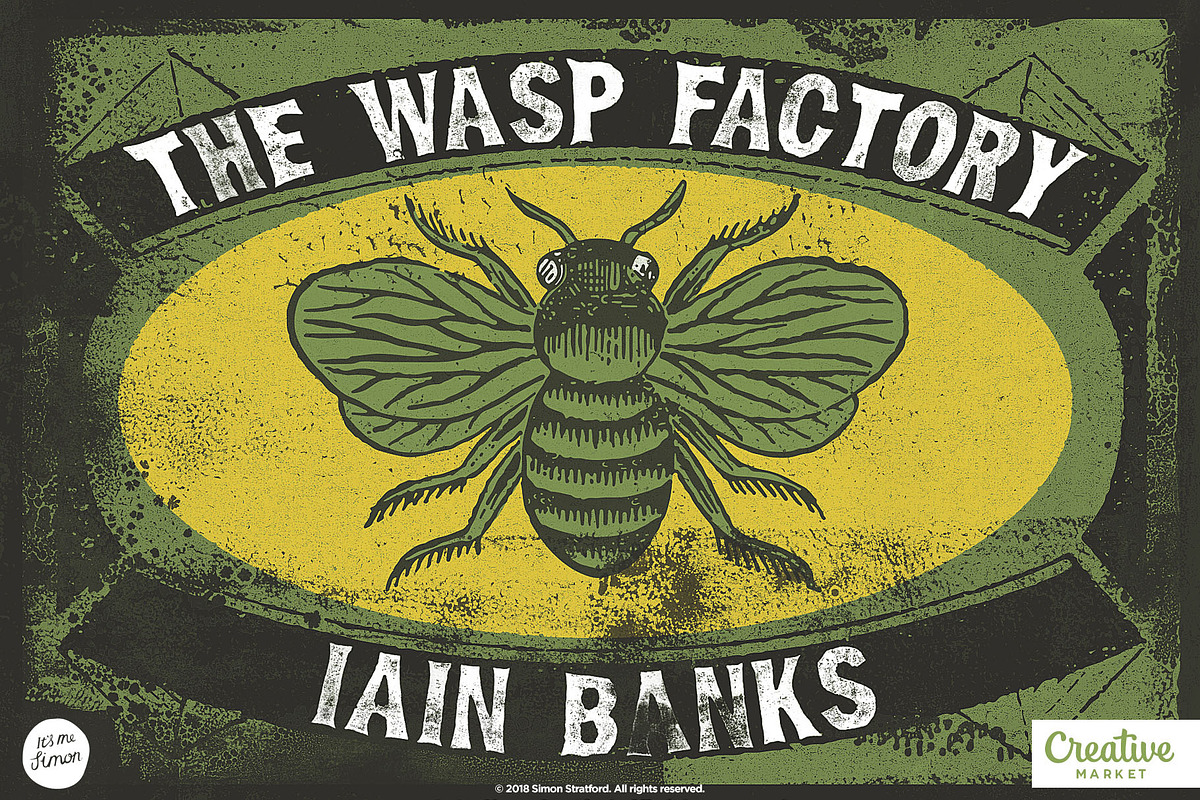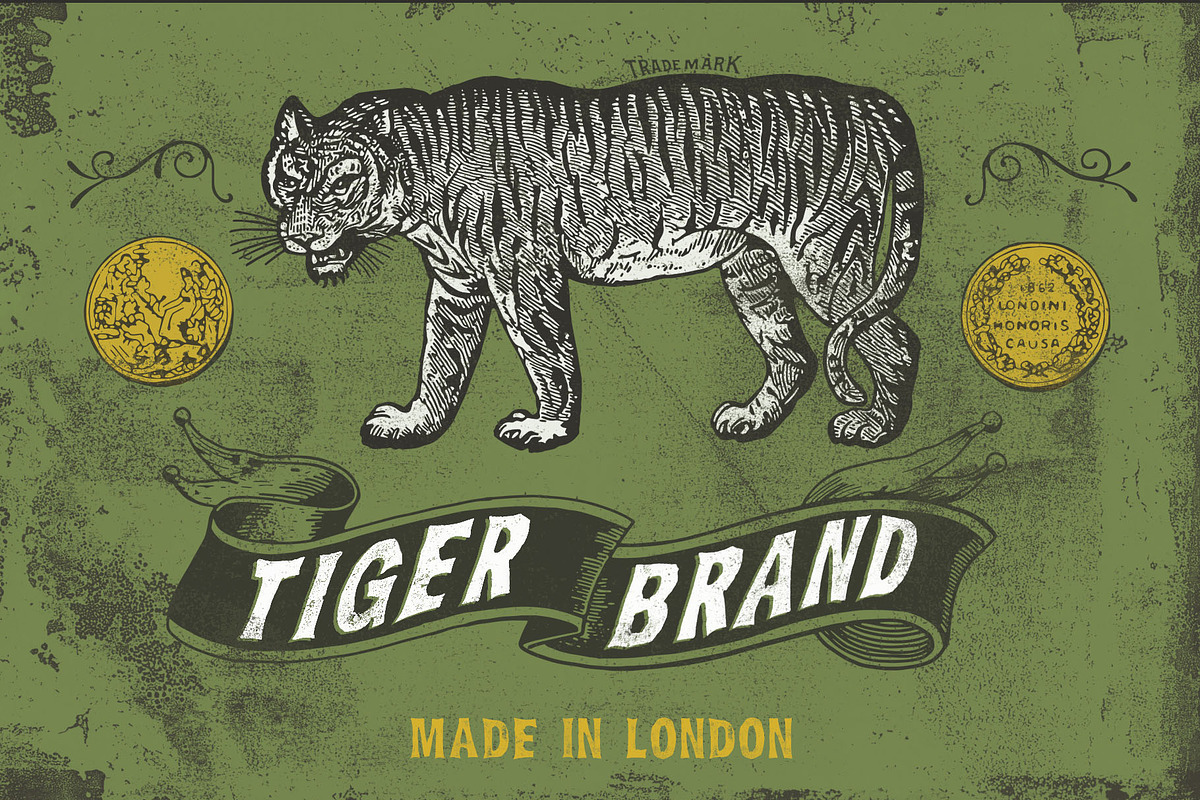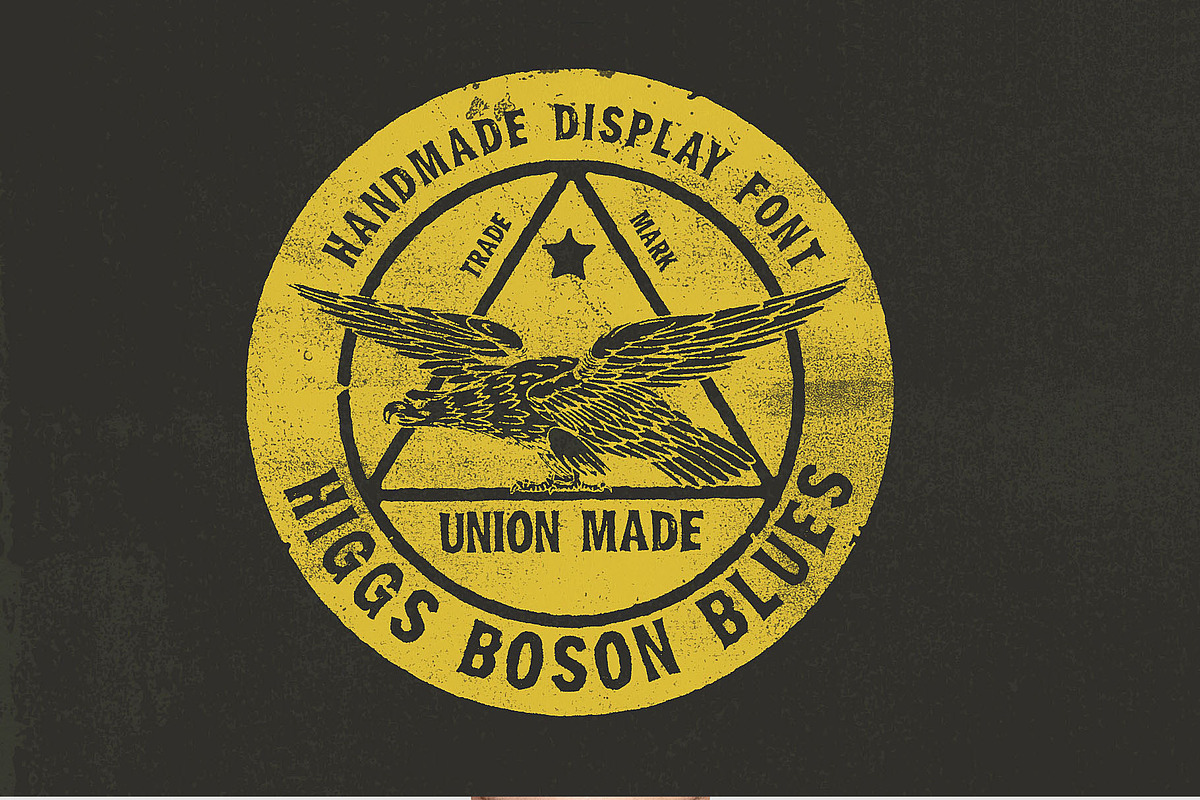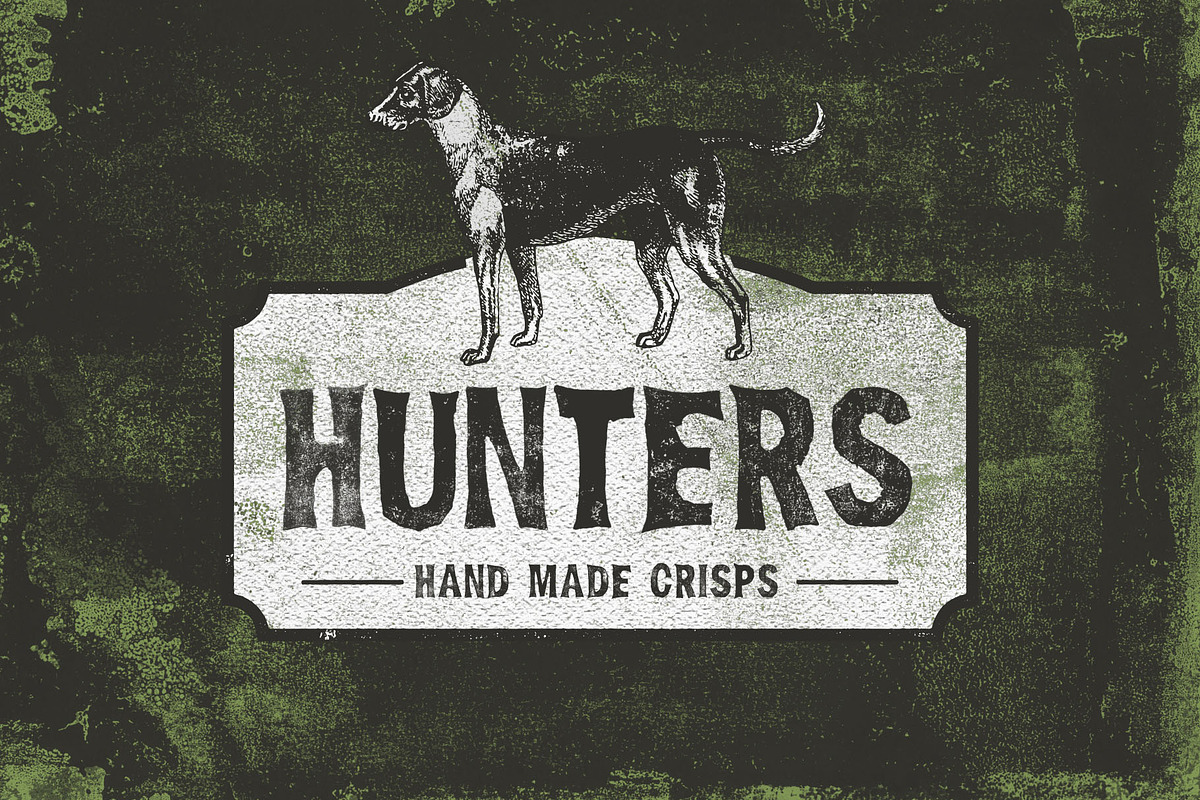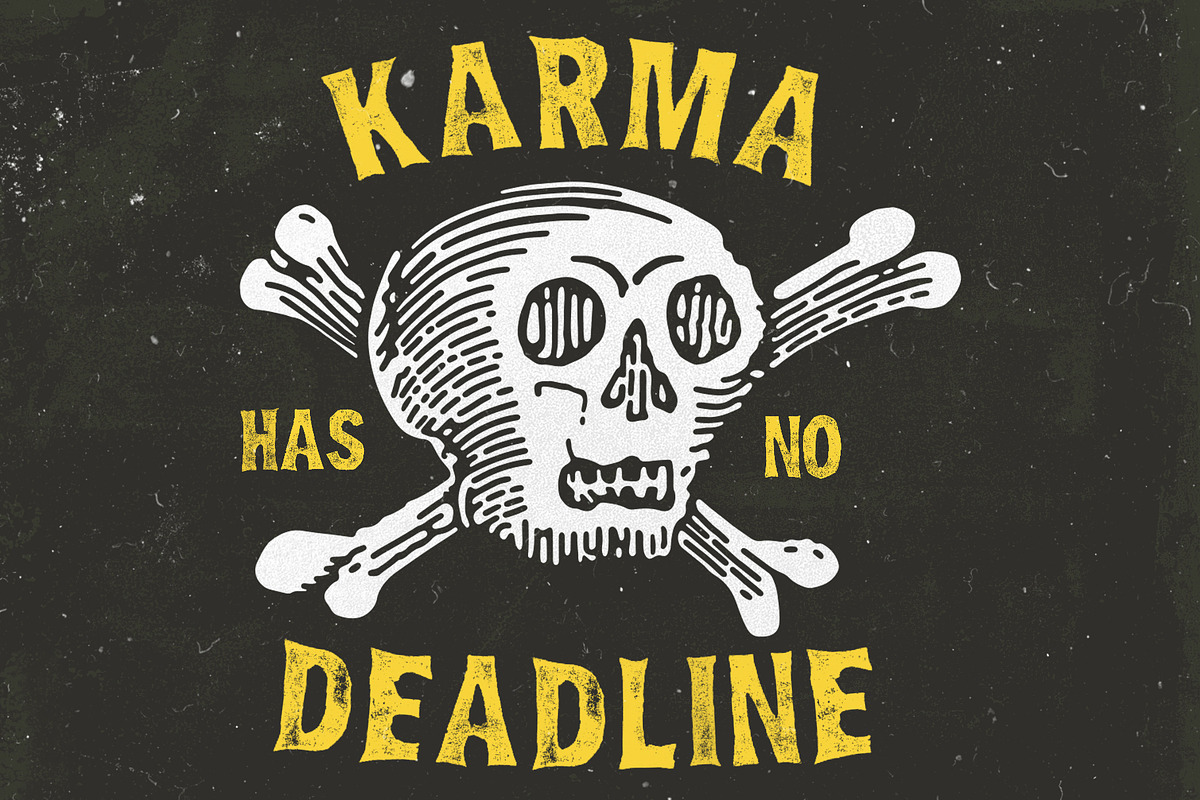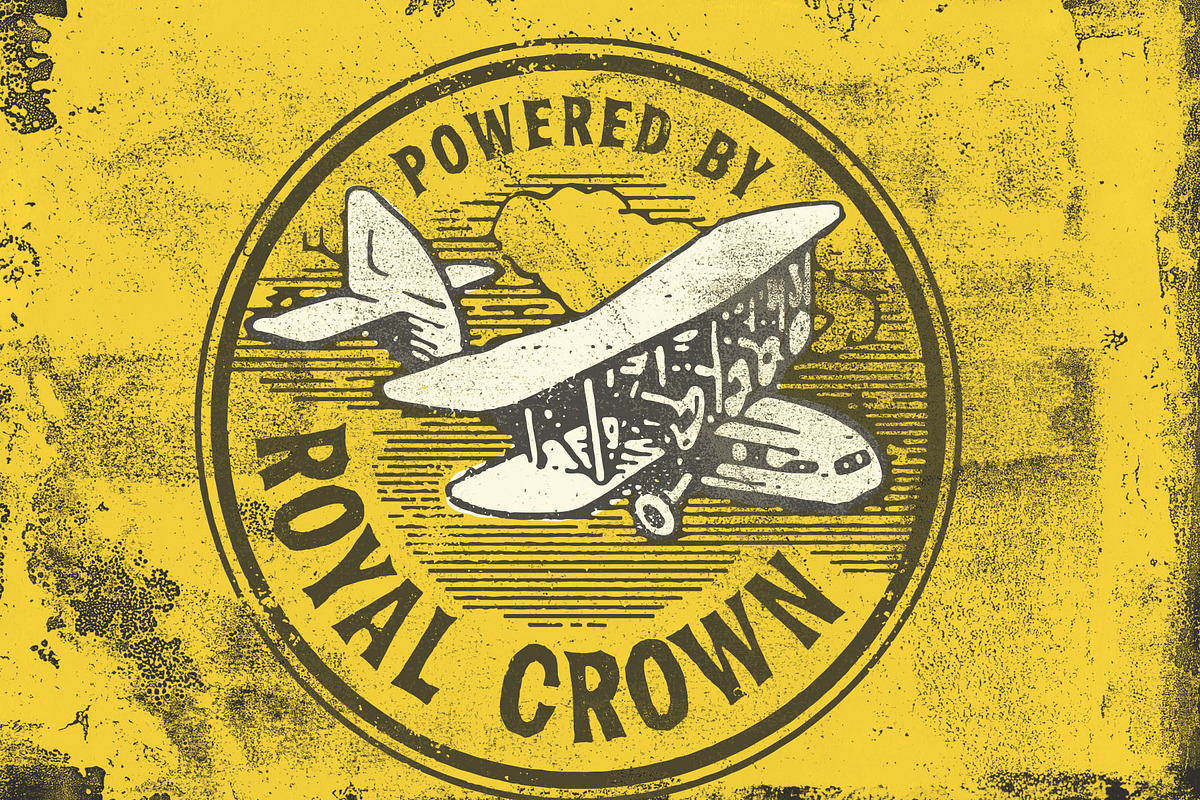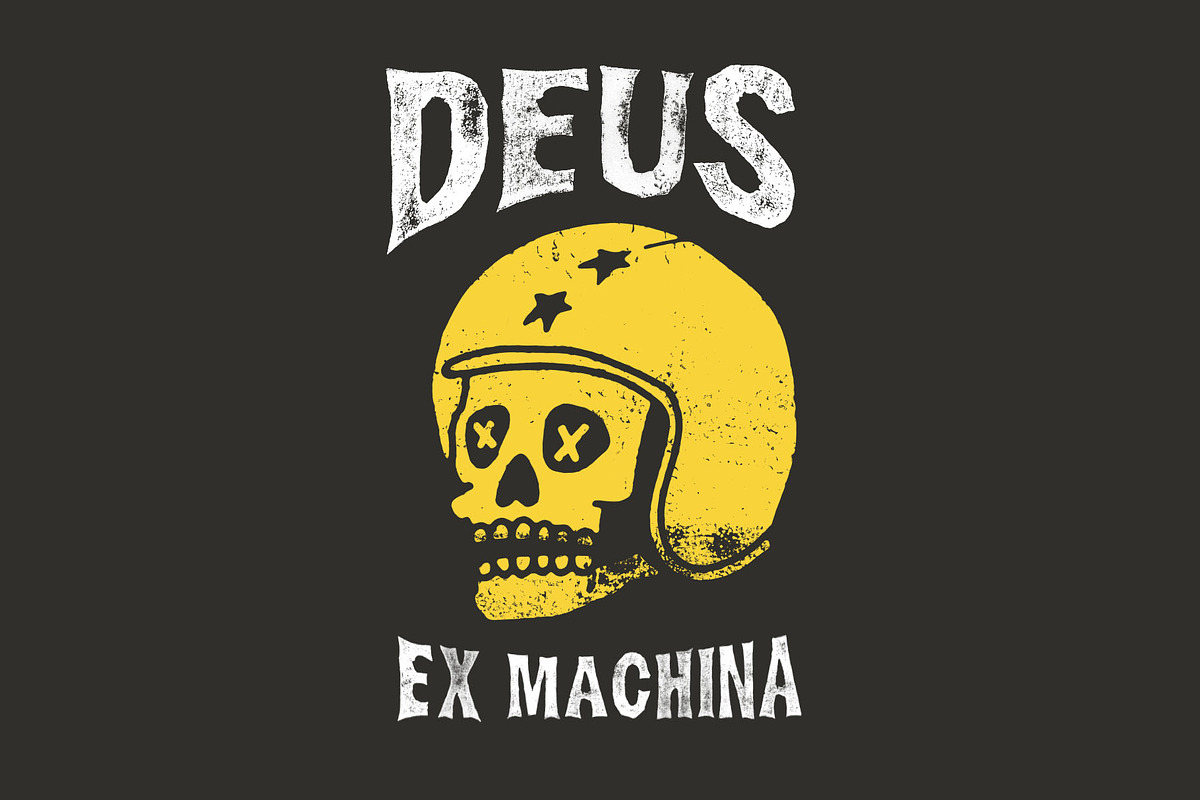
Display font Higgs Boson Blues
Display font Higgs Boson Blues — Higgs Boson Blues is a handmade bold display type, in the tradition of American wood type. It comes in two font formats OpenType-SVG bitmap and standard vector font.
Every character has been hand carved onto lino and hand printed with waterbased ink. This gives the OpenType-SVG font an impressive amount of texture and detail. It gives it a weathered almost stamped like appearance.
I aimed to create a wood type font that is reminiscent American type from the early 1800's. Its got that western vintage style about it for sure.
It has all that lovely grunge detail that only block printing by hand brings—the standard vector font is not too shabby either.
Also, the SVG font is all set on a transparent layer, that means you can quickly change the colour in Photoshop or Illustrator. (see below)
Higgs Boson Blues usage
If this typeface were a celebrity it would be more Clint Eastwood than Chuck Norris, but Chuck can still make a campfire by rubbing together two ice cubes—ledgend.
The typeface is suitable for a wide range of creative designs but works best to create that vintage look. Everything from logos, letterheads, headlines and t-shirts to retro packaging, book covers and beer labels.
If you are after that authentic letterpress style, Higgs Boson Blues might be a match made in heaven.
OpenType Alternatives
Each uppercase and lowercase character has three alternative versions. Very handy to make your lettering look different, more random like real block printing. Just access the alternatives via your glyphs panel and switch out any repetitive letters.
A traditional vector font is included, it's not quite the same as the SVG version (not as much detail) but it will work in any graphics application.